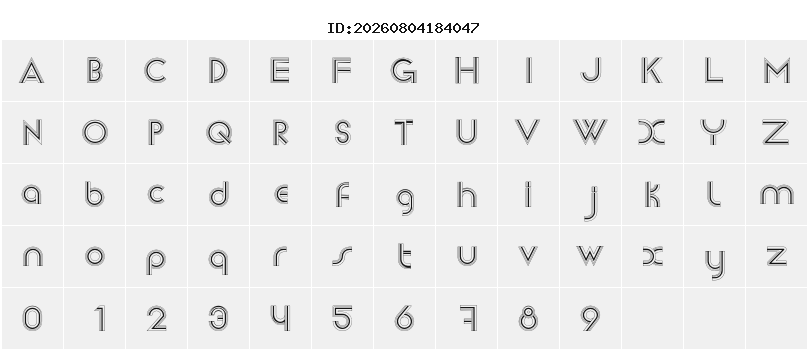
• Font Name: Newsense
• Designer: Adrian Candela
• Description: Newsense is a font by Adrian Candela, designed by Adrian Candela in 2013.
Newsense.otf is a modern, elegant sans-serif font designed for ultimate readability and visual harmony. Perfect for branding, headlines, web design, and print materials.